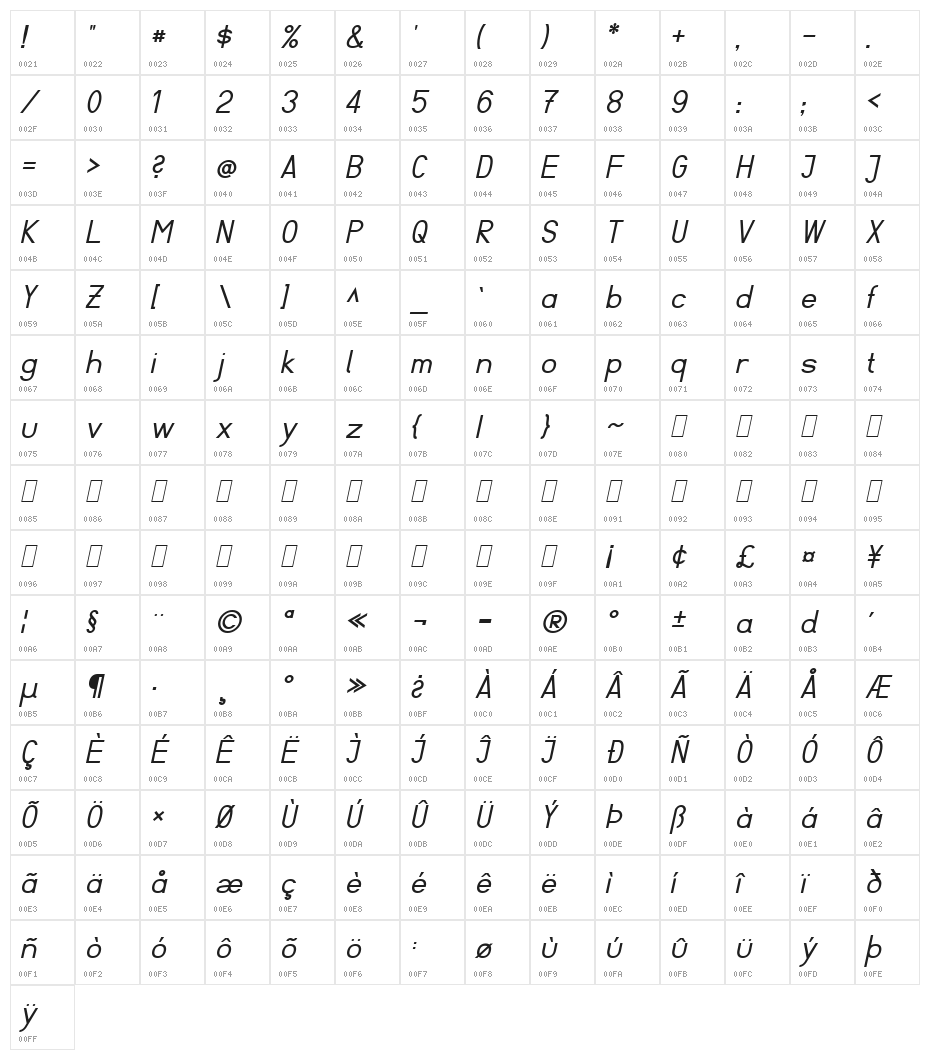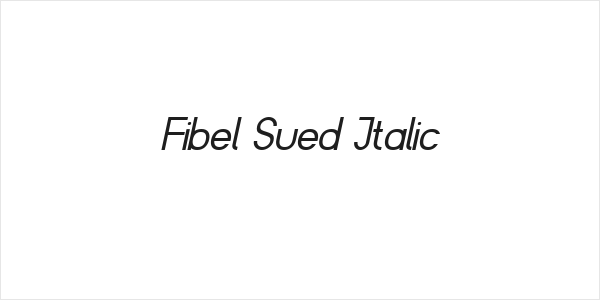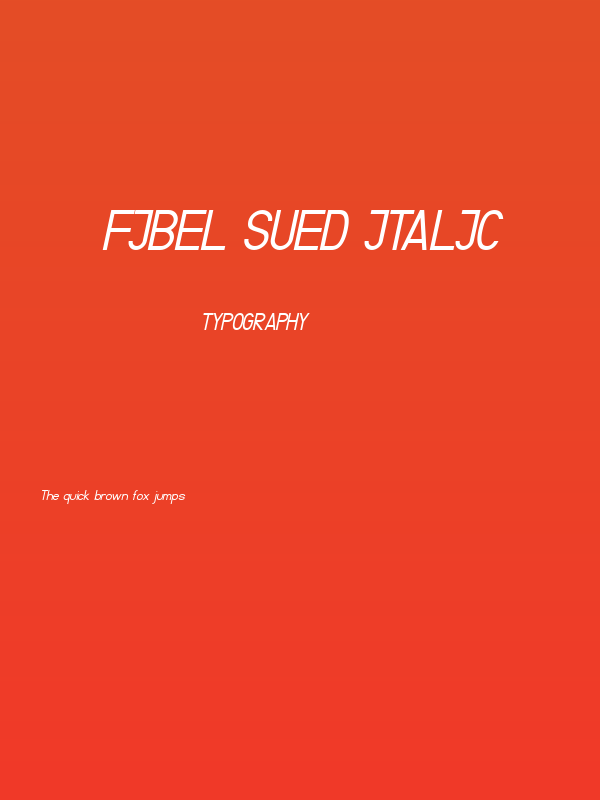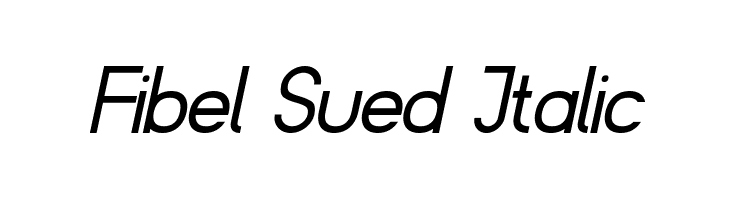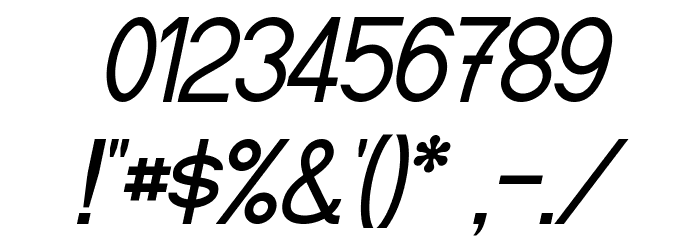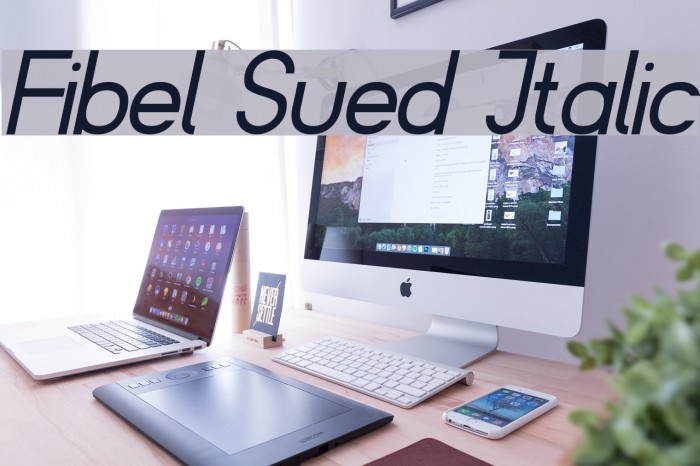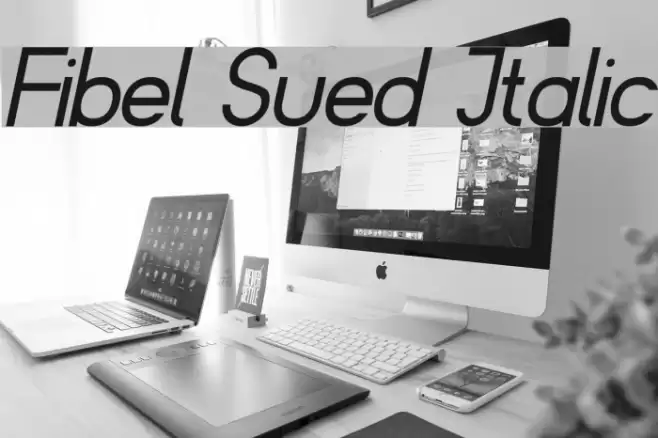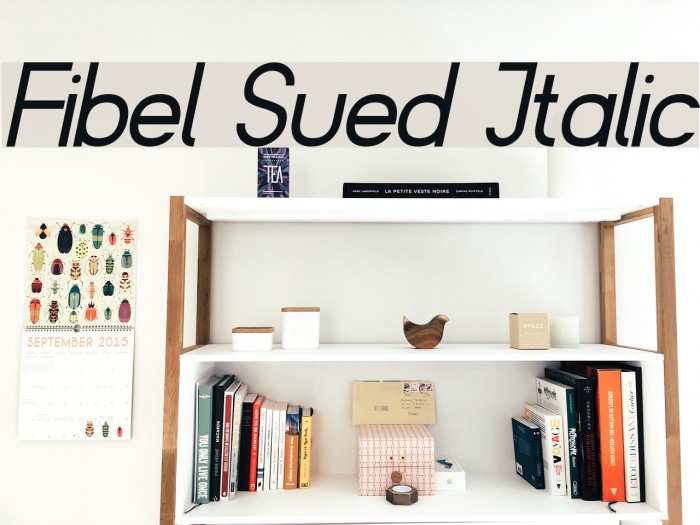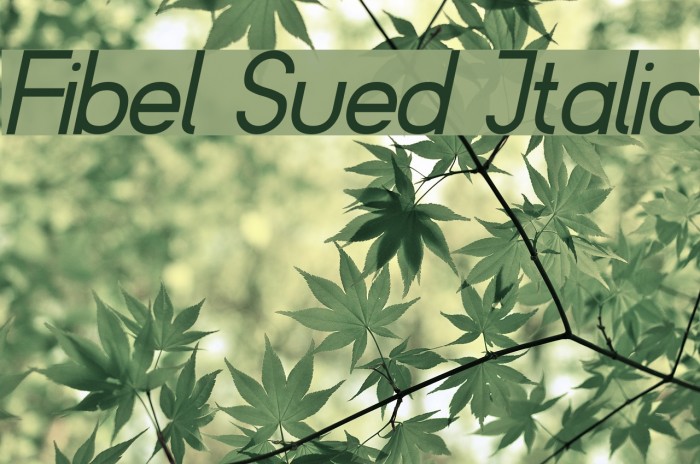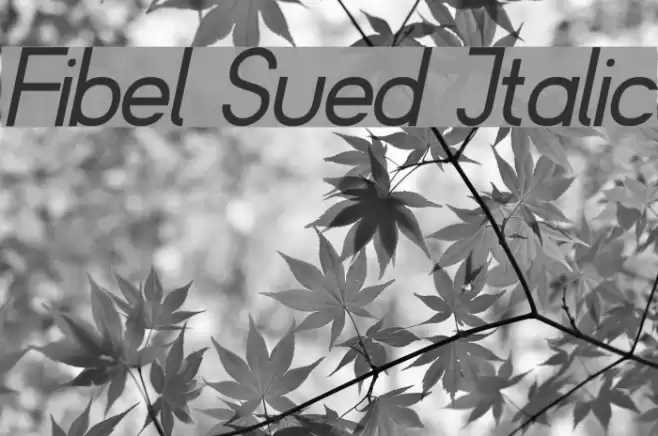
Fibel Sued Italic Font
Fibel Sued Italic Description
This font features a sleek, italicized style with a modern and dynamic appearance. The characters are slightly slanted, giving a sense of motion and elegance. The strokes are consistent in weight, providing a uniform look across all characters. The uppercase and lowercase letters maintain a harmonious balance, while the numerals and special characters are clear and legible. The overall design is clean and minimalistic, making it suitable for various applications where a contemporary and stylish look is desired.
| Use Case | Headlines, Logos, Editorial design |
| Proposed Projects | Ideal for branding, advertising, and editorial design where a modern and stylish appearance is needed. |